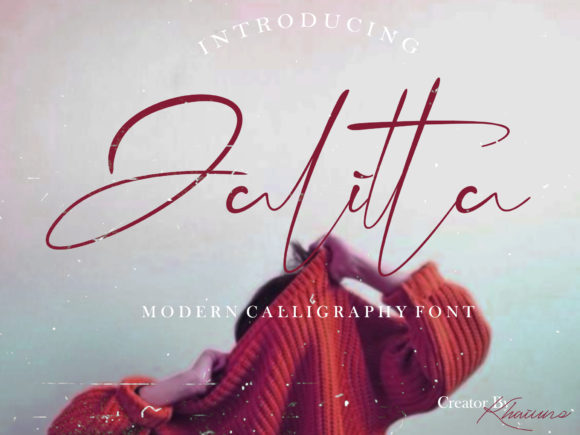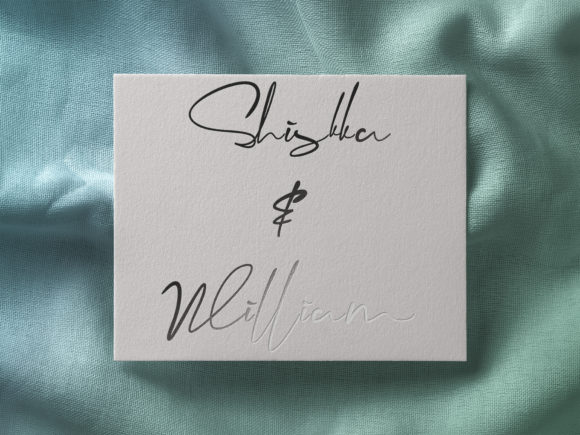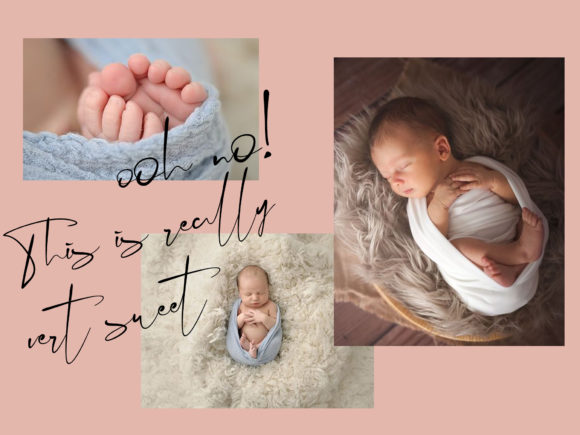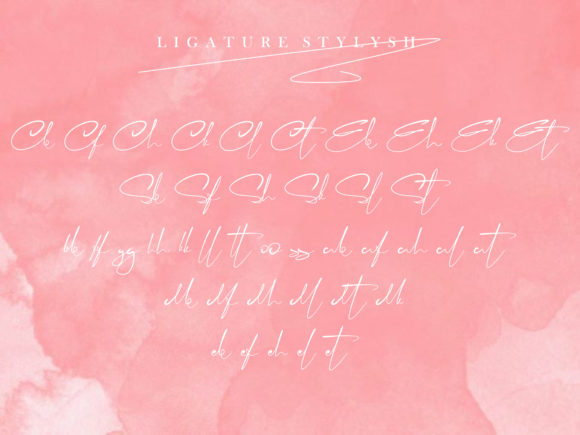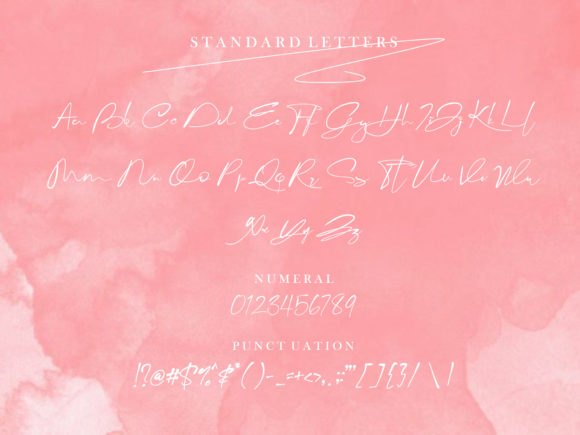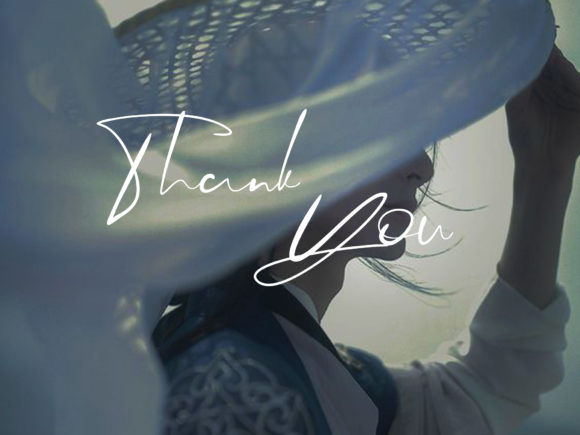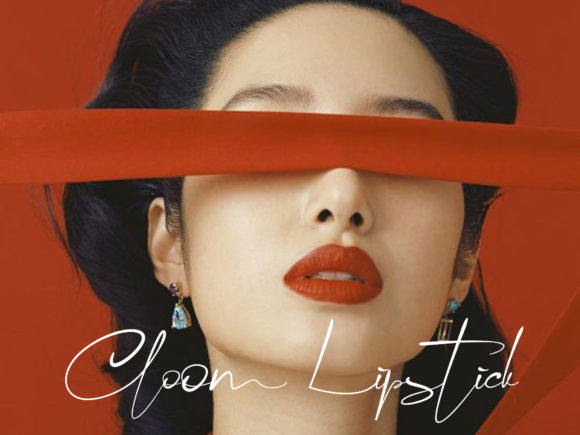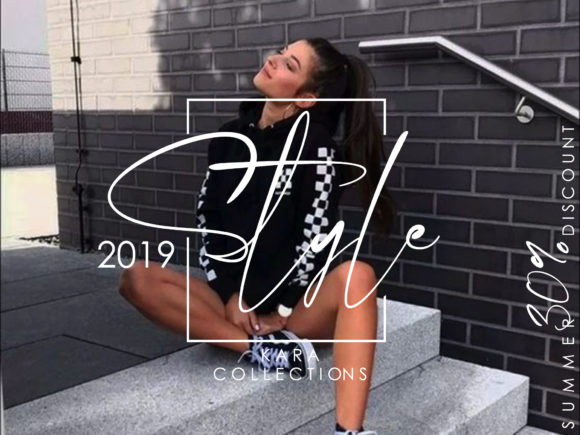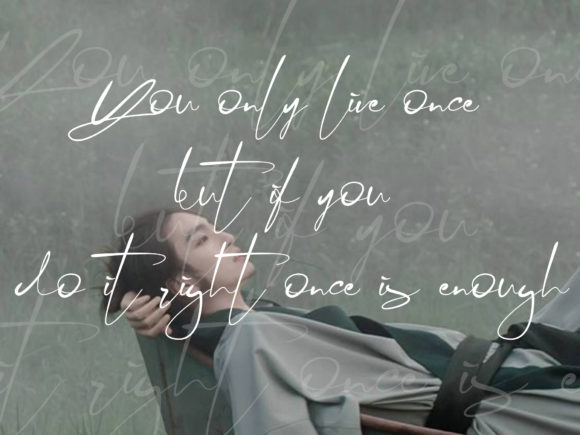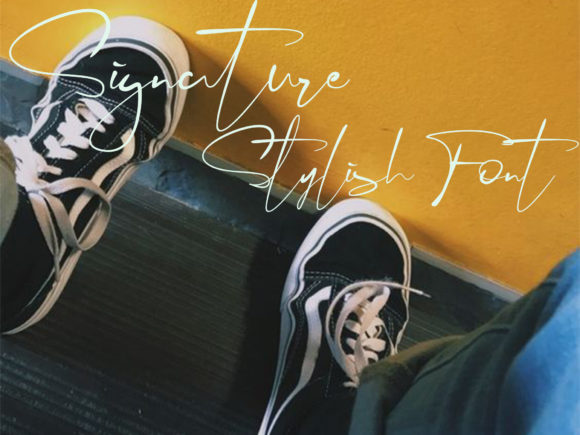
Jalitta Font
About Jalitta Font
Jalitta is a stylish modern calligraphy font with casual chic flair. It will add a romantic touch to any crafting project!